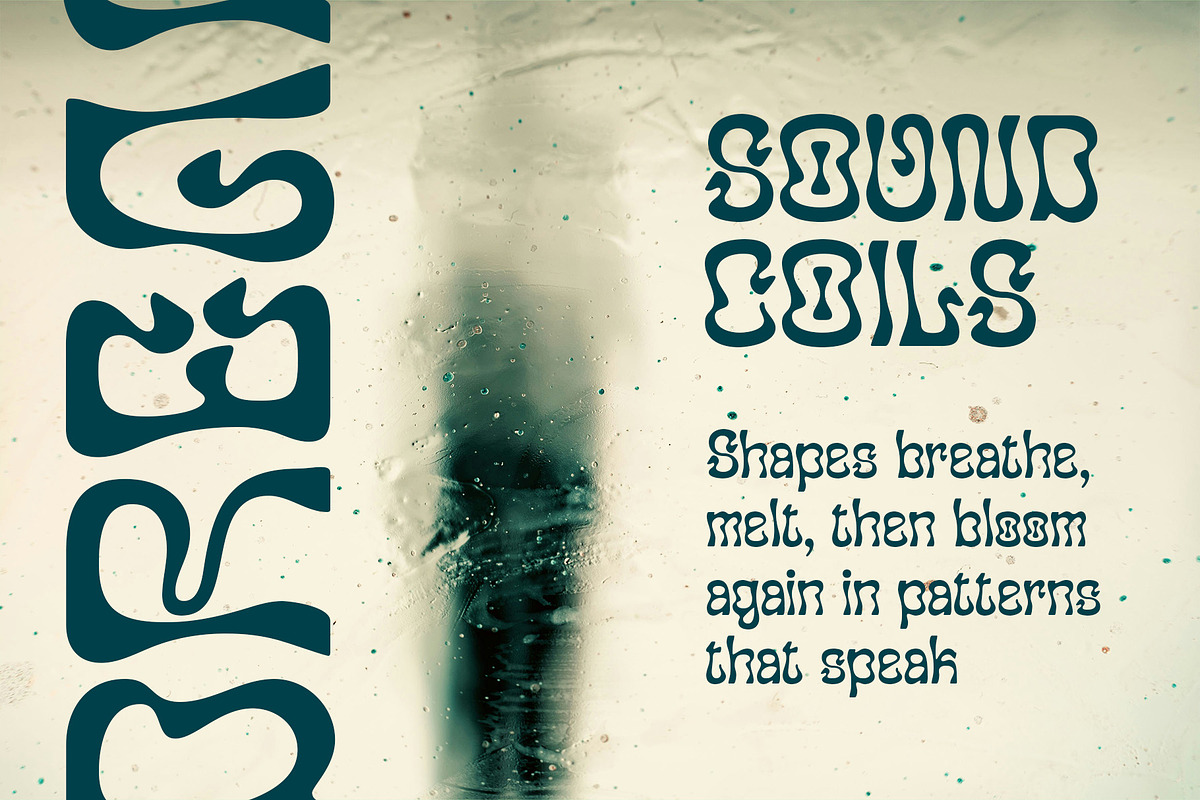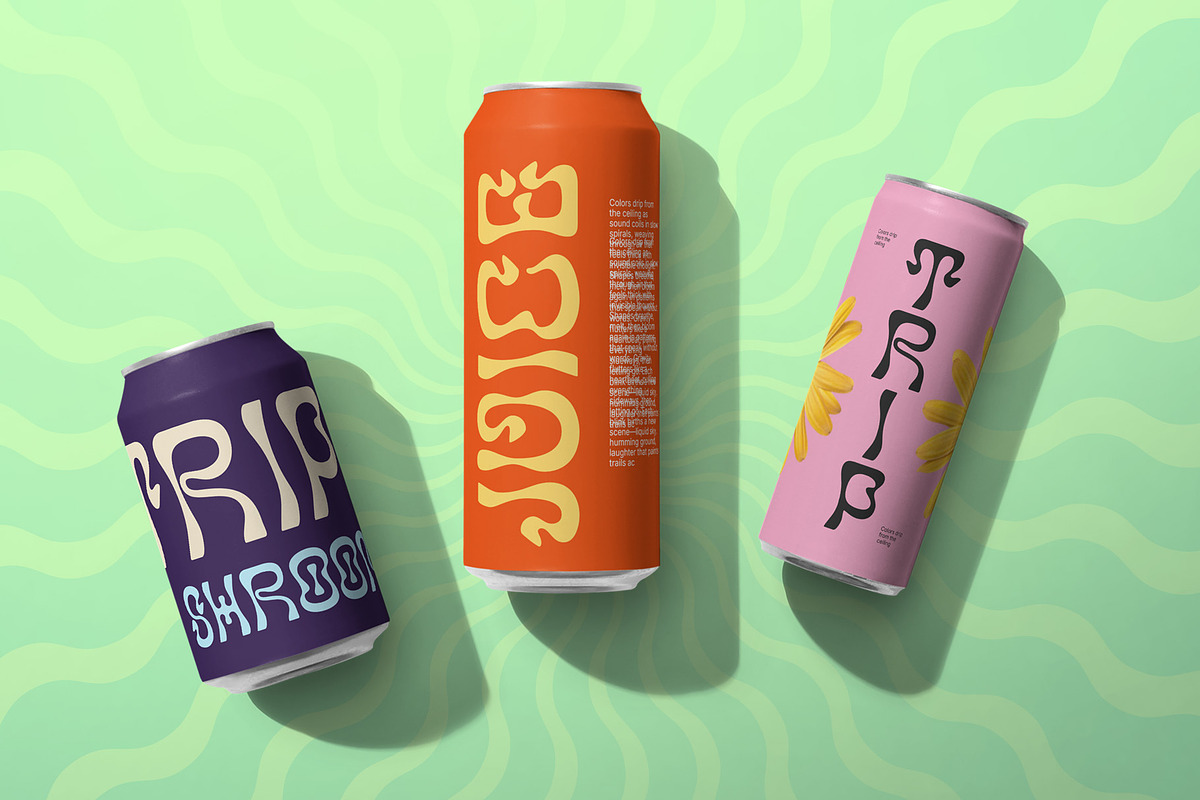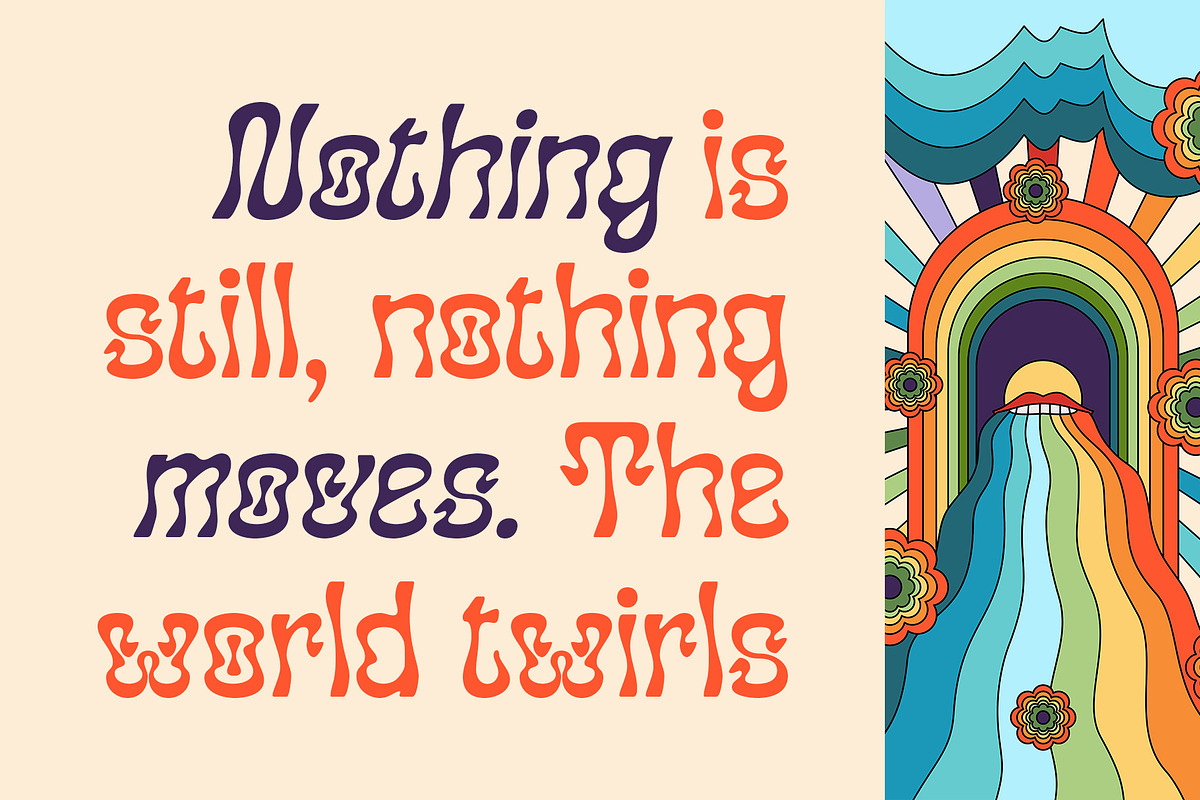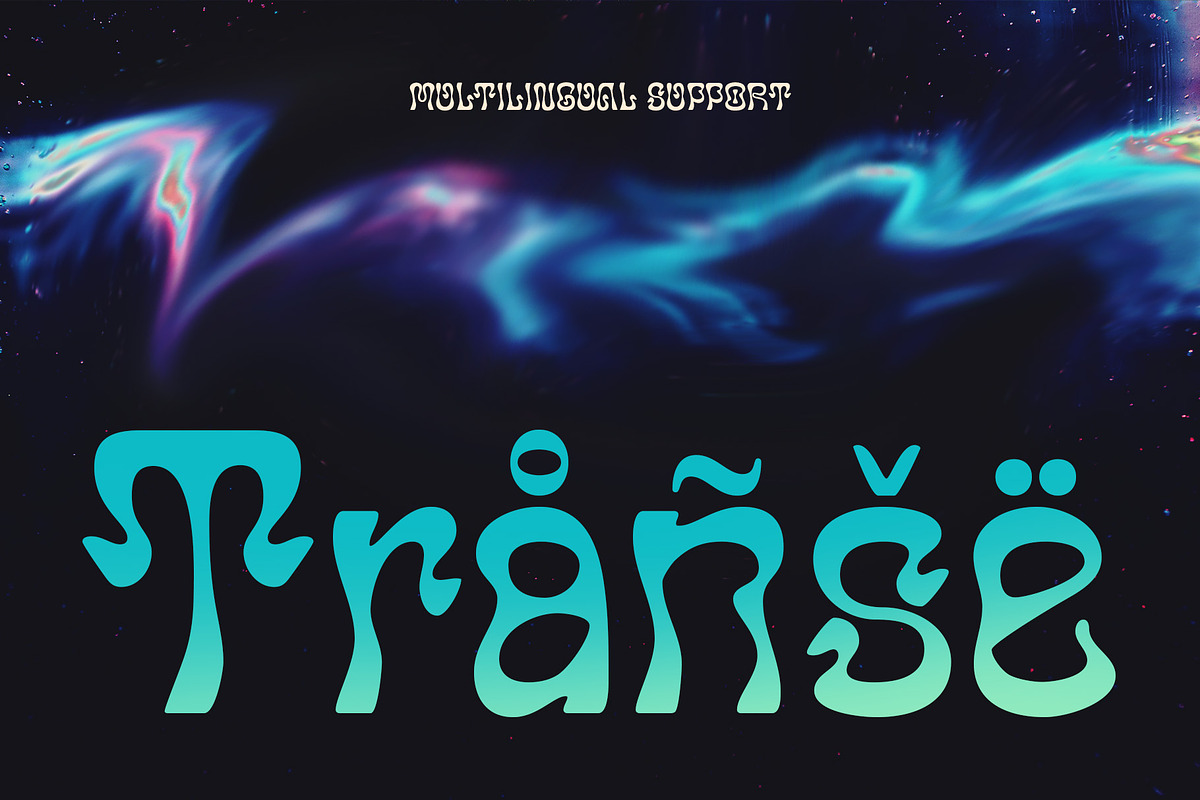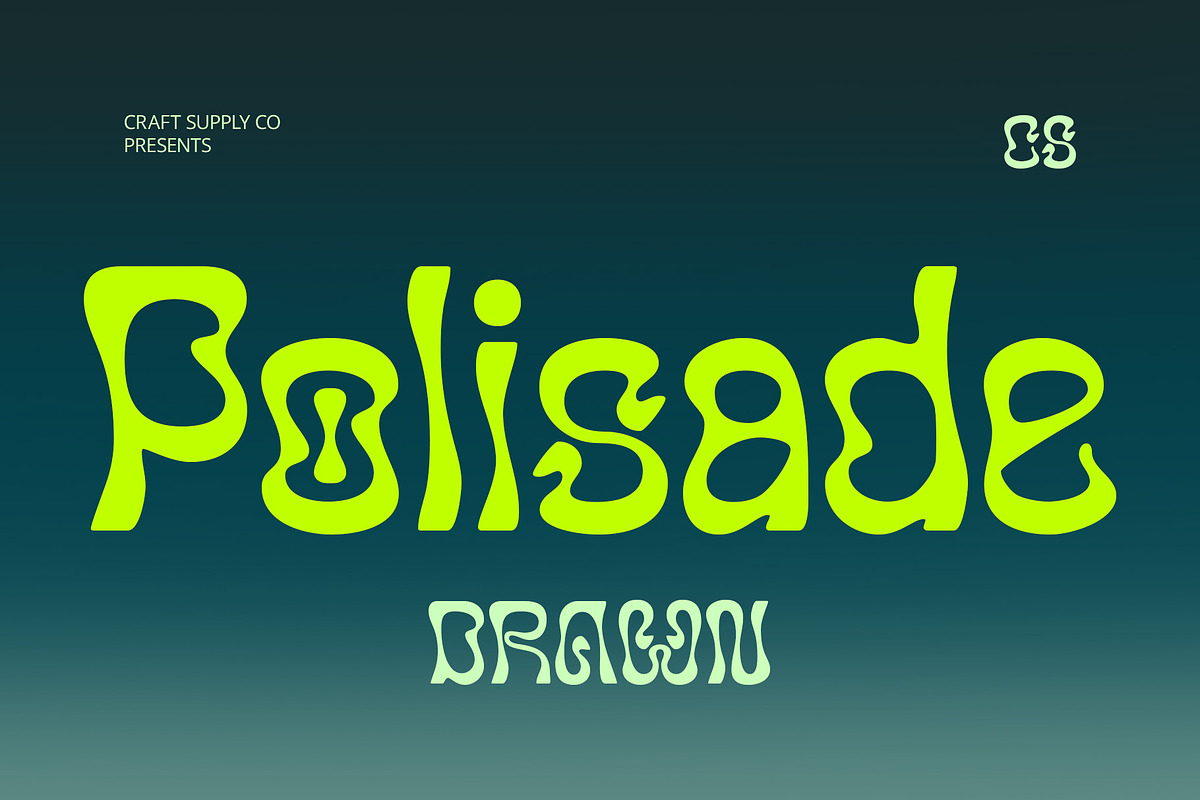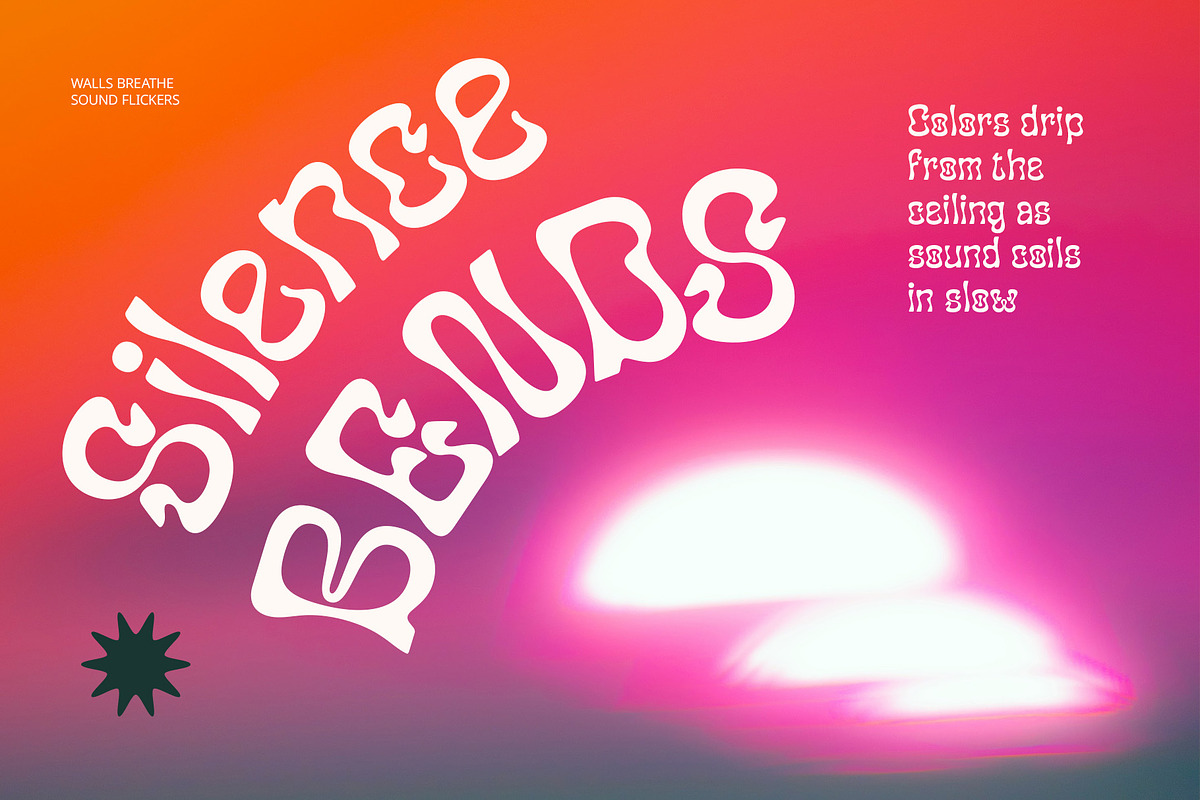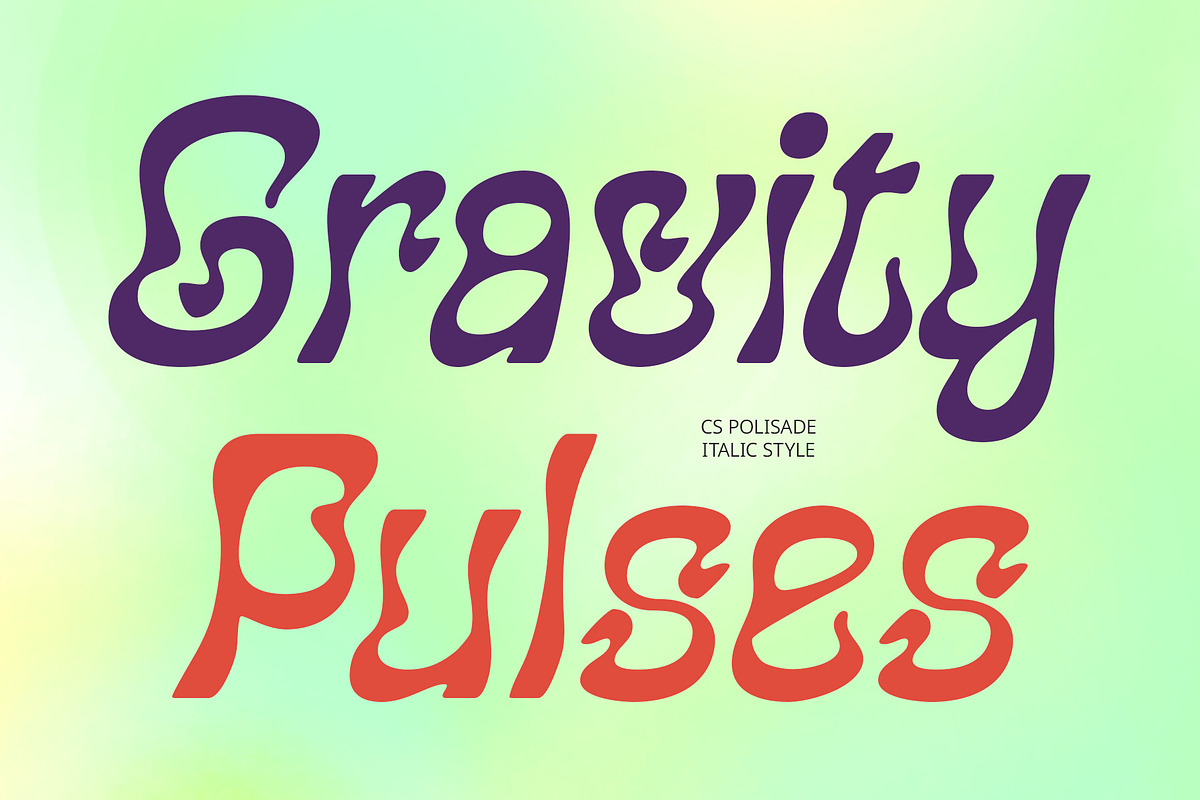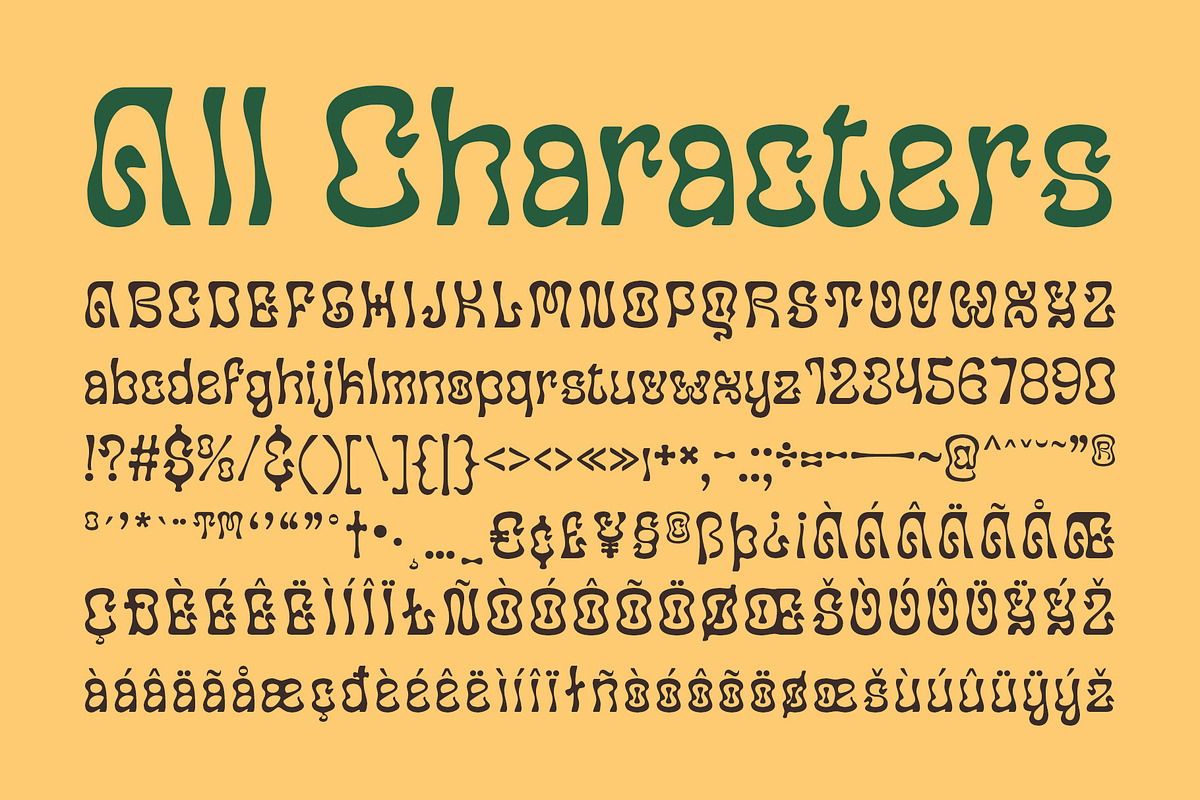
CS Polisade Drawn
CS Polisade Drawn – Where Psychedelia Meets Artistic Freedom
Wild Psychedelic Letterforms with Freeform Energy CS Polisade Drawn is a psychedelic-style display font that bursts with irregular, curvy, and eccentric shapes. Inspired by the radical visual experimentation of the 60s and 70s, its letterforms flow unpredictably, creating a funky and expressive rhythm across each word. The typeface channels the visual energy of vintage counterculture and expressive music scenes.
Drawn Effect for Organic Handmade Texture Infused with a drawn effect, the font gains a raw, handmade quality that amplifies its expressive nature. The subtle imperfections and textured lines give it a natural, artistic feel, bridging retro psychedelia with modern hand-drawn aesthetics. This texture adds depth and authenticity, turning each letter into a visual element of its own.
Fusion of Vintage Rebellion and Creative Expression The vibrant character of this lively font makes it a natural choice for high-impact visuals. Its eccentric curves, spontaneous angles, and unpredictable rhythm result in a typeface that’s expressive, animated, and full of attitude. It captures attention instantly and injects any layout with dynamic energy and bold personality.
Perfect for Music, Posters, and Bold Creative Projects Its expressive style shines in album covers, festival posters, experimental branding, and any visual content that thrives on expression and artistic individuality. It’s the perfect choice for designers looking to add bold personality, nostalgic flair, and handcrafted uniqueness to their work.